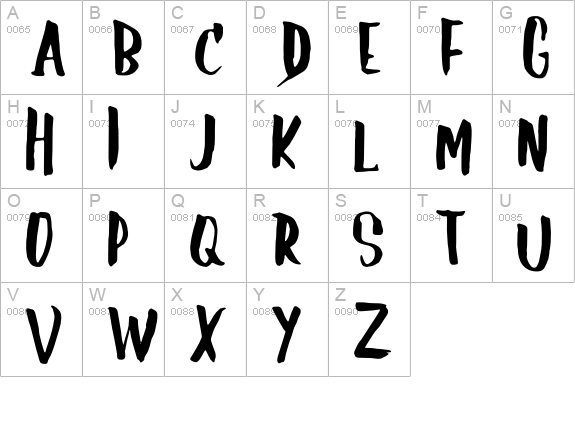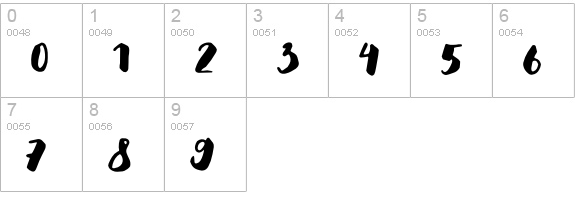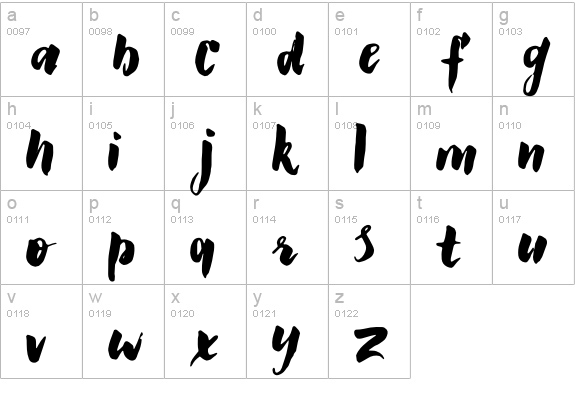
GS Claretta Brush Font Font Details
GS Claretta Brush Font is a free for personal use font in the Script > Brush category, designed by Graphic Spirit. It has been downloaded 85 times and is available for Windows, Mac and Linux.
Introducing GS Claretta Brush Font, a stunning and versatile typeface that adds a touch of elegance and sophistication to any design project. This beautiful brush font exudes a sense of modernity and style, making it perfect for a wide range of applications, from branding to packaging to social media graphics.
With its unique brush strokes and flowing curves, GS Claretta Brush Font is sure to make your text stand out and capture the attention of your audience. Whether you're designing a logo, a poster, a website, or any other creative project, this font will help you create a memorable and impactful visual identity.